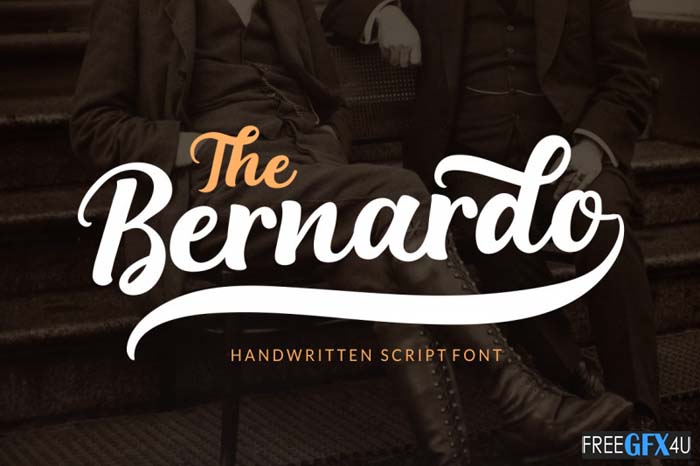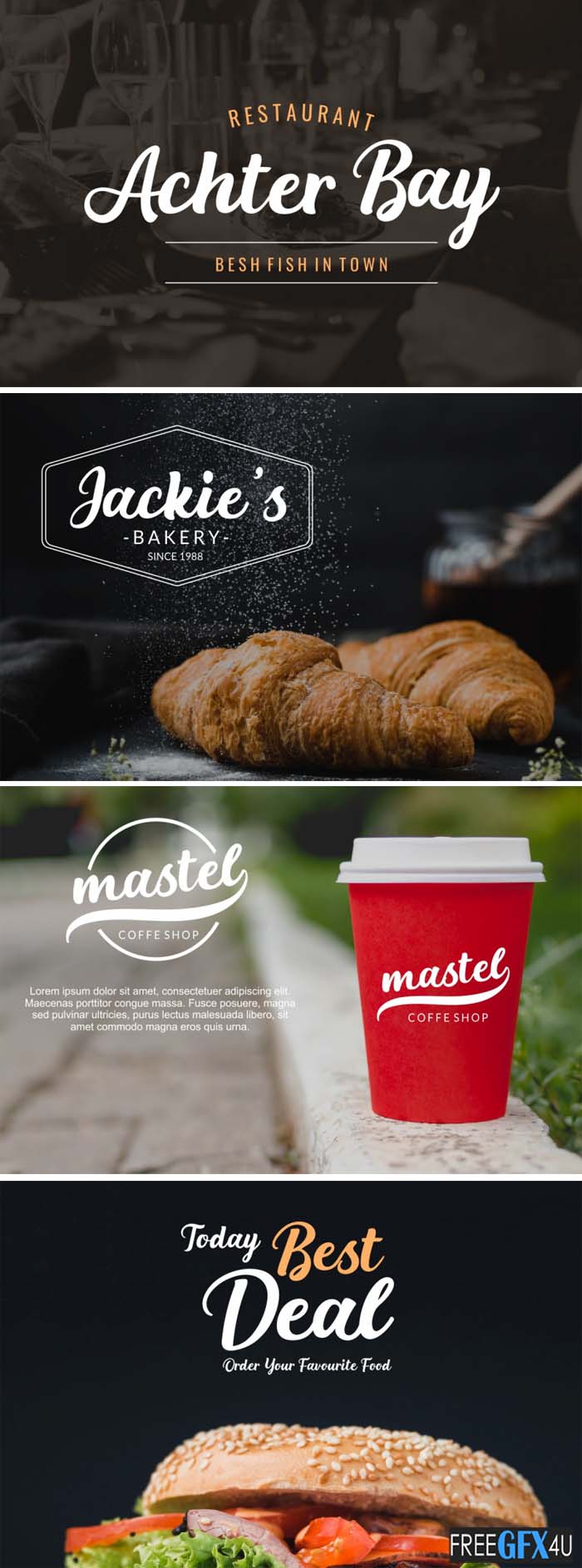
Here in this post, you’ll get a free download link of the Professional The Bernardo Font from below button. The Bernardo Font is a gorgeous and flowing handwritten font, crafted to give your headlines and logotype projects a stylish touch. You Can Also Download Graphicriver – Ollykers Font Brush Script.
The Bernardo Font
This font reads strong, confident, and dynamic and can add tons of nostalgic character to your designs. The Bernardo is PUA encoded which means you can access all of the glyphs and swashes with ease. You Can Also Download Motherland Signature Font.